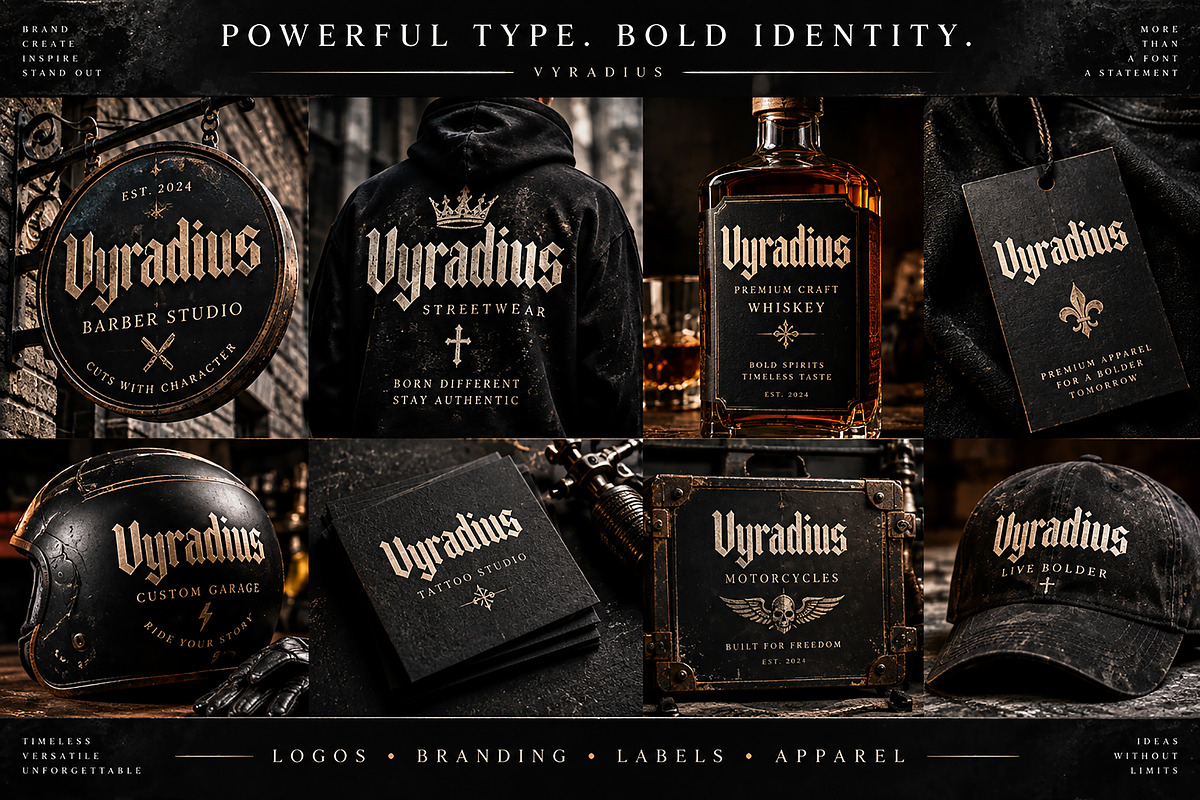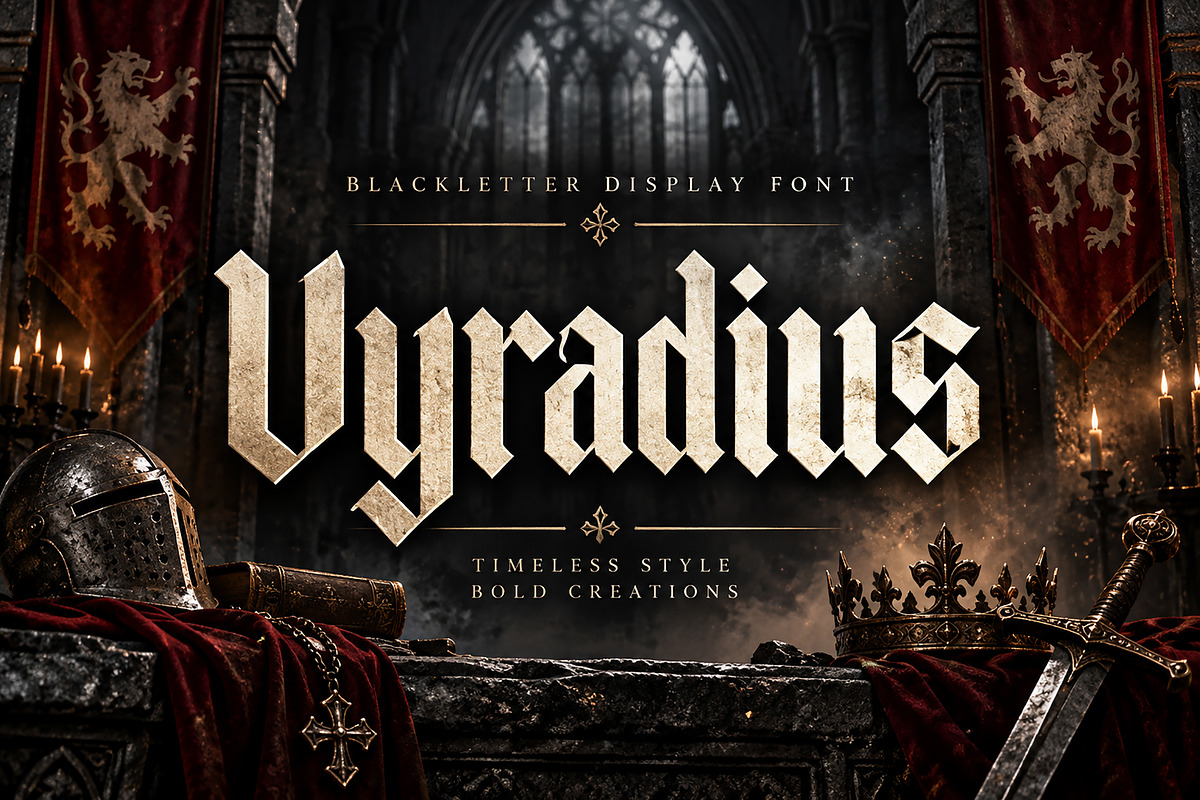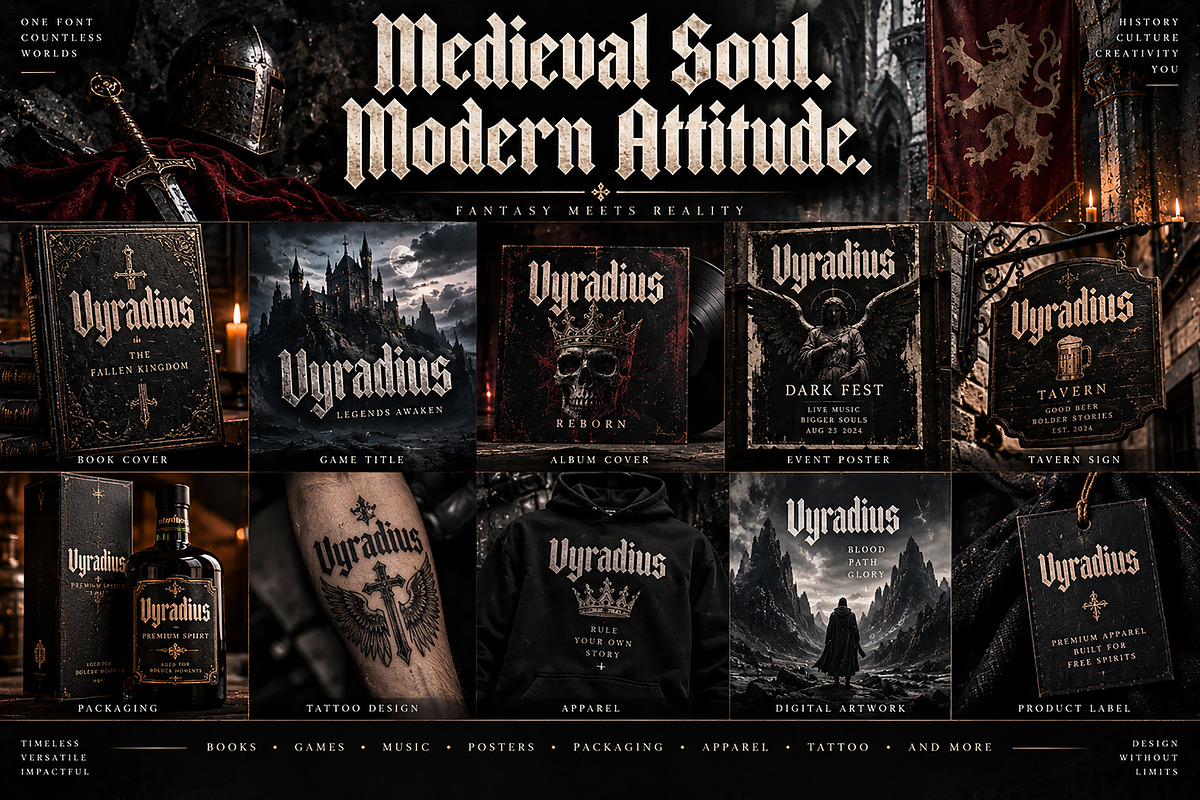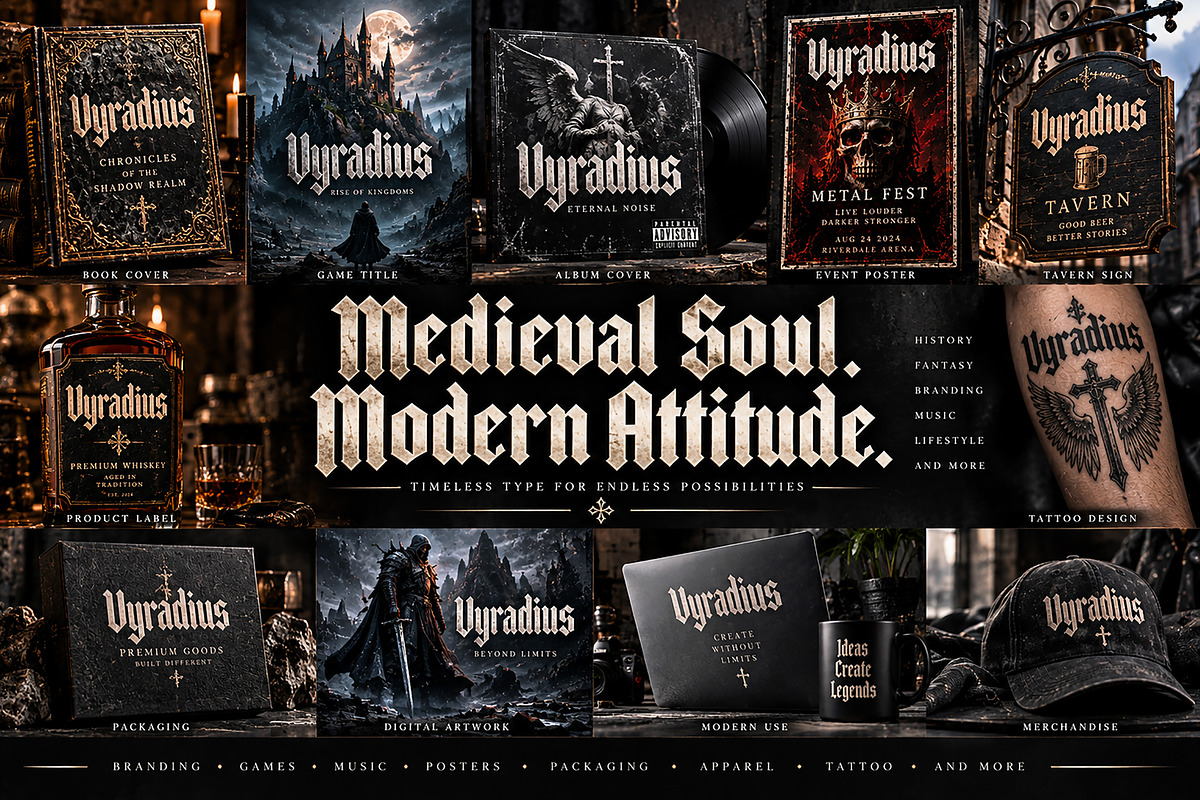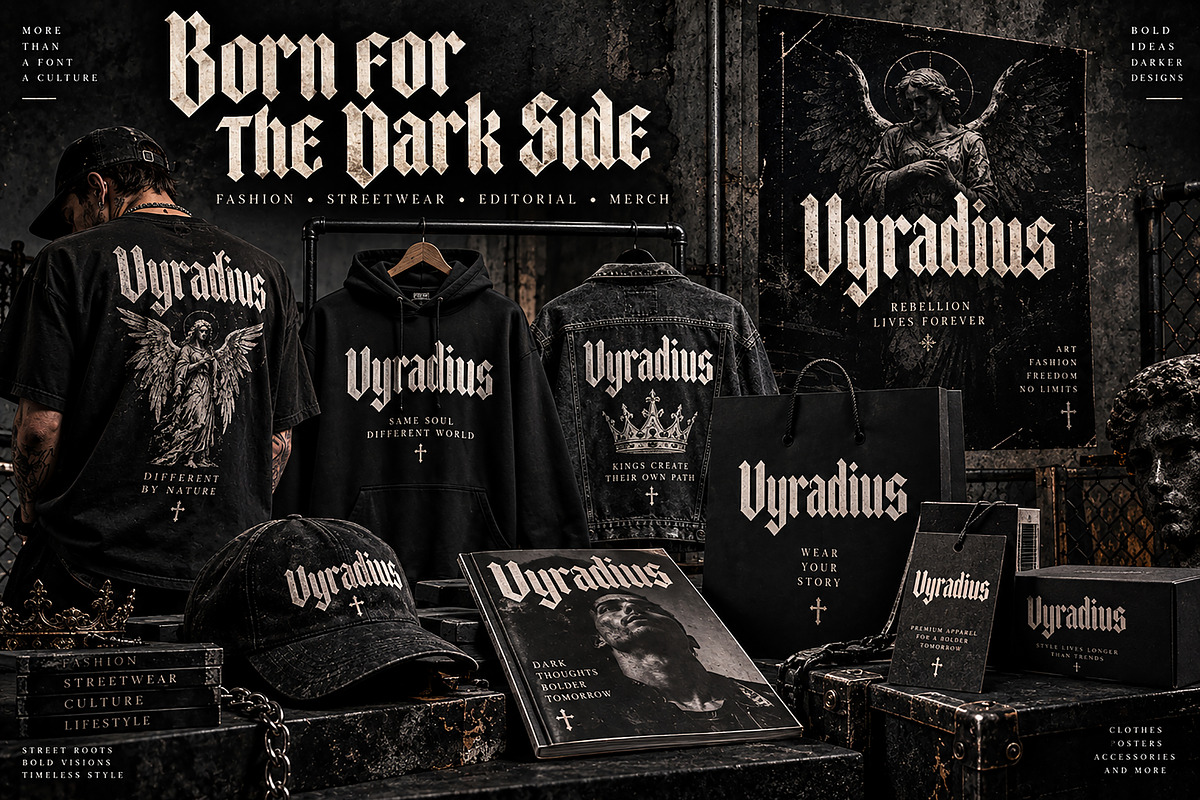
Vyradius – Bold Gothic Blackletter Font
Vyradius is a powerful gothic blackletter display font designed to bring a dramatic, medieval-inspired character to modern creative projects. With its sharp angular forms, strong vertical structure, and distinctive blackletter personality, Vyradius creates an instantly recognizable visual identity.
Perfect for projects that need a bold, dark, historical, rebellious, or luxurious aesthetic. Whether you're creating a powerful brand identity, streetwear collection, fantasy artwork, album cover, game title, poster, packaging, or editorial design, Vyradius is made to make your typography stand out.
Gothic & Medieval Branding
Logos & Brand Identity
Streetwear & Apparel
T-Shirt & Hoodie Designs
Fantasy & Gaming Projects
Album & Music Artwork
Movie & Event Posters
Book & Cover Designs
Tattoo Artwork
Labels & Badges
Editorial & Magazine Designs
Merchandise & Promotional Designs
Dark & Alternative Creative Projects
Bold Gothic / Blackletter Style
Sharp & Angular Letterforms
Strong Medieval Character
Dramatic Display Typography
Ideal for Headlines & Logos
Versatile for Print & Digital Projects
Great for Branding, Apparel & Merchandise
Vyradius is a statement-making display typeface created for designers who want their projects to feel bold, timeless, powerful, and unmistakable.